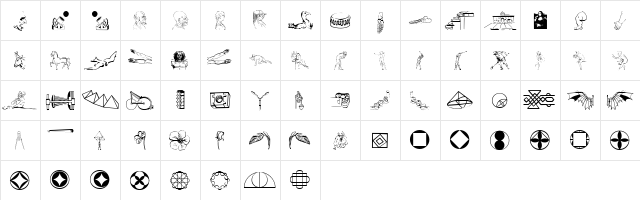
P22DaVinciExtras Medium Font Preview
P22DaVinciExtras Medium
Design Context for P22DaVinciExtras Typeface
P22DaVinciExtras is a composed and adaptable typeface that performs quietly and consistently across a wide range of design contexts.